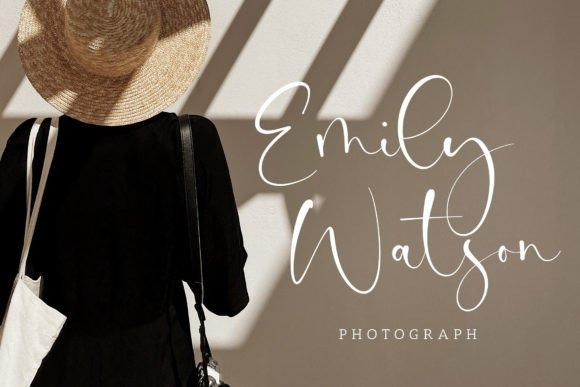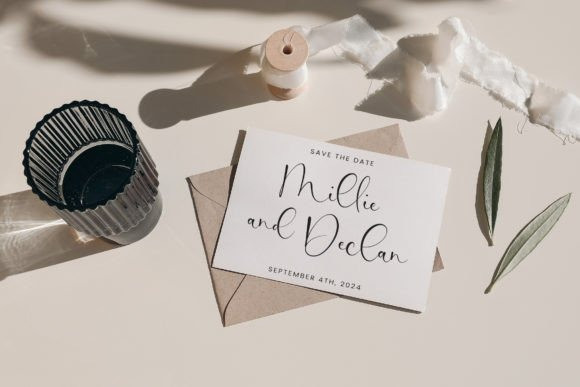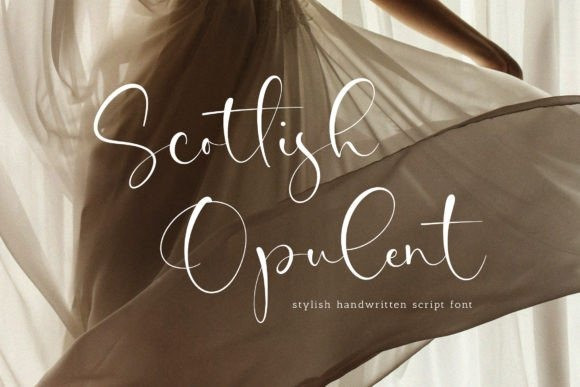
Scotlish Opulent Font
Scotlish Opulent Font is a handwritten font with a contemporary atmosphere and impeccable form. Not too thin and not too thick, balanced and varied, this font was designed to enhance the beauty of your projects. This font will be ideal for writing wedding invitations, cards or any other design that may need a romantic, personalized touch!